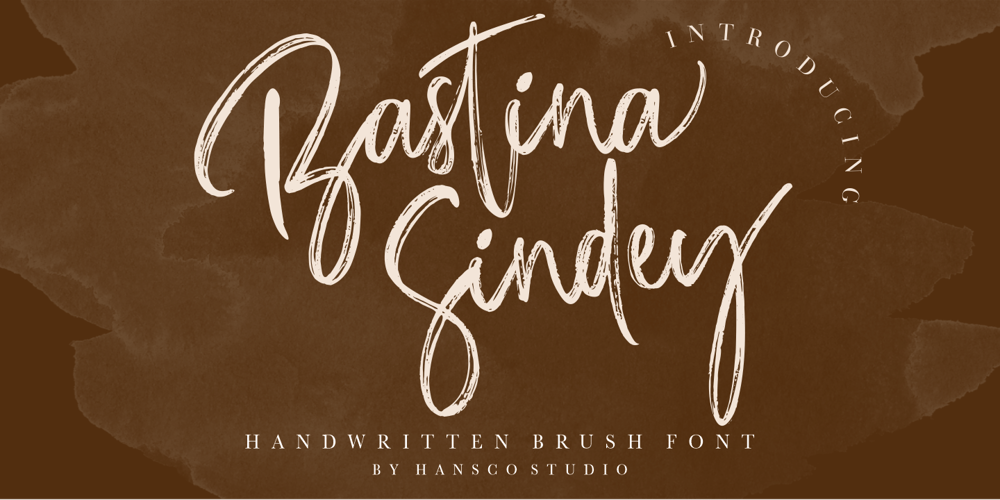
Bastina Sindey Font Family was designed by Burhan Afif and published by HansCo. Bastina Sindey contains 2 styles and family package options. Bastina Sindey is a natural handbrush font. This texture is very detailed. You can get also the swash brushes include in this font pack. This font is suitable for logos, shirts, fashion, blogs, websites, product branding, posters, flyers, any print template or for text overlay to any background image. Comes with a full uppercase, lowercase, numbers and punctuation + standard multilingual support. It’s great for branding, logo designs, lettering, logotype, craft, posters, packaging and much more. We recommend using Adobe Illustrator or Photoshop.Tutorial how to Install & use Alternate / Special Character : https://hanscostudio.com/tutorial/Enjoy!